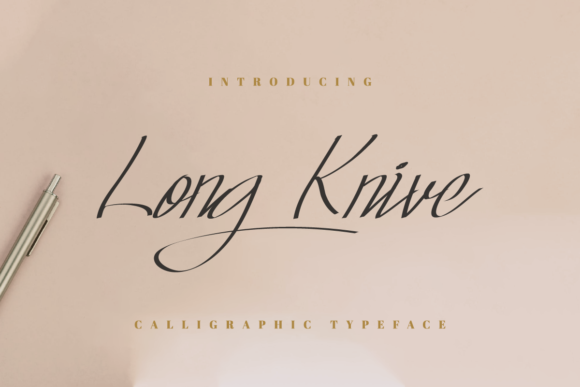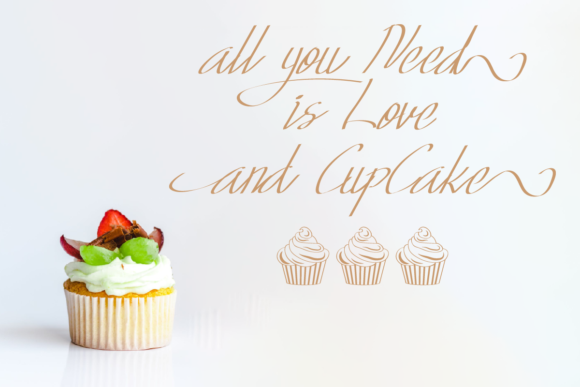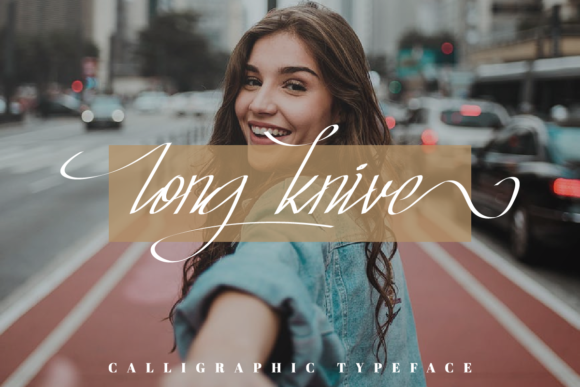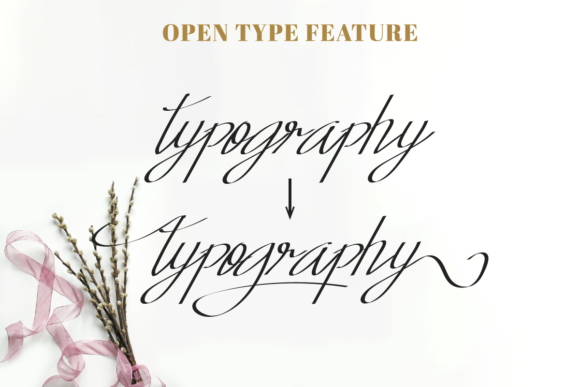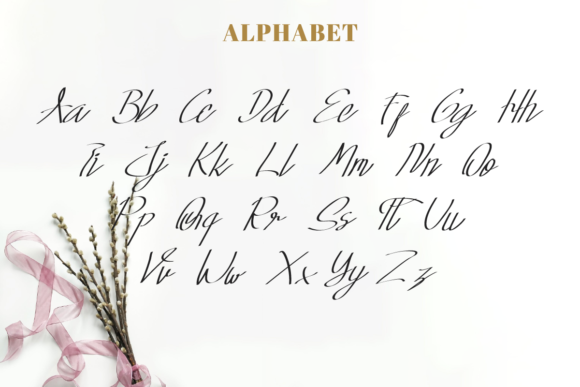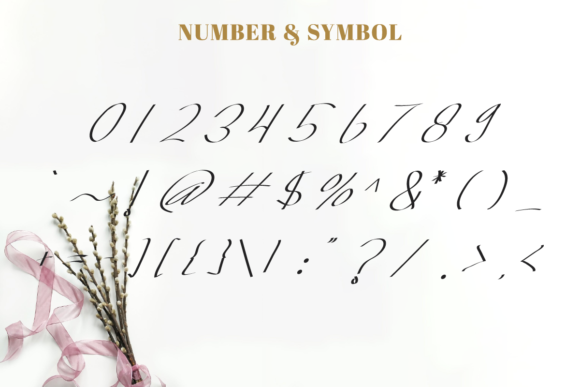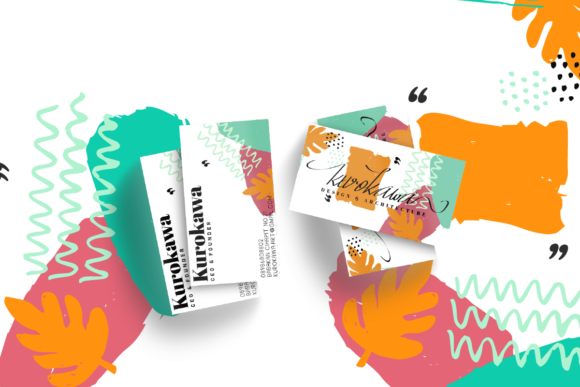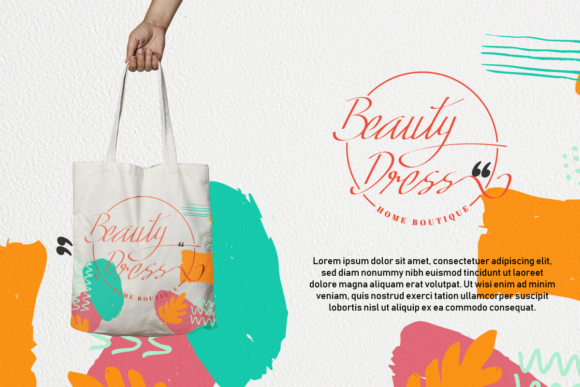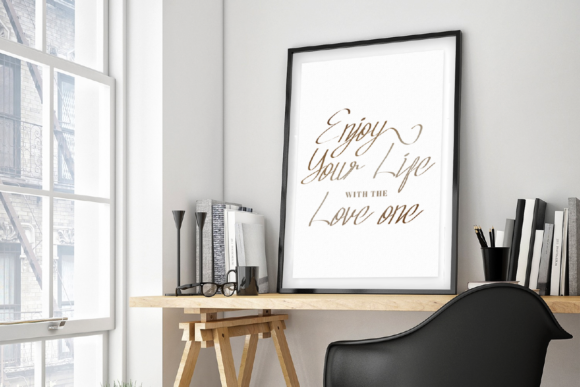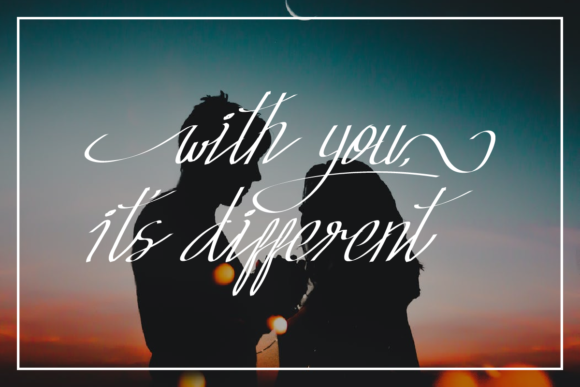
Long Knive Font
Long Knive is a beautiful and smart handwritten font with a unique twist. Get inspired by its sophisticated feel, and turn any design project into a stand out!